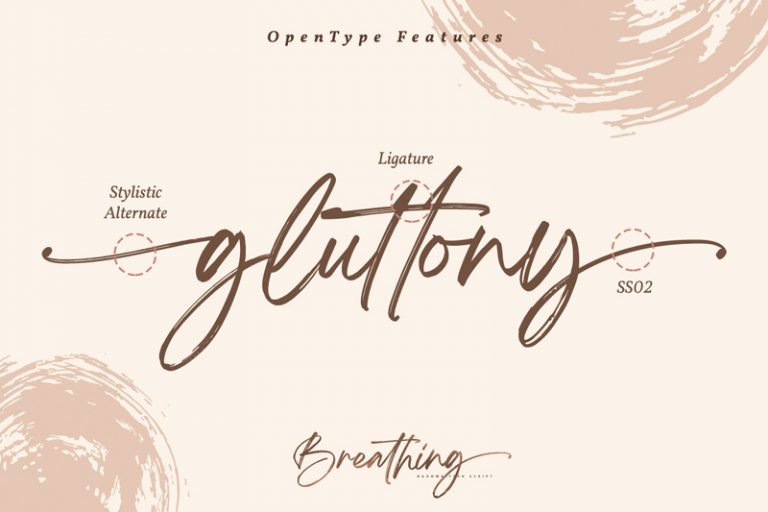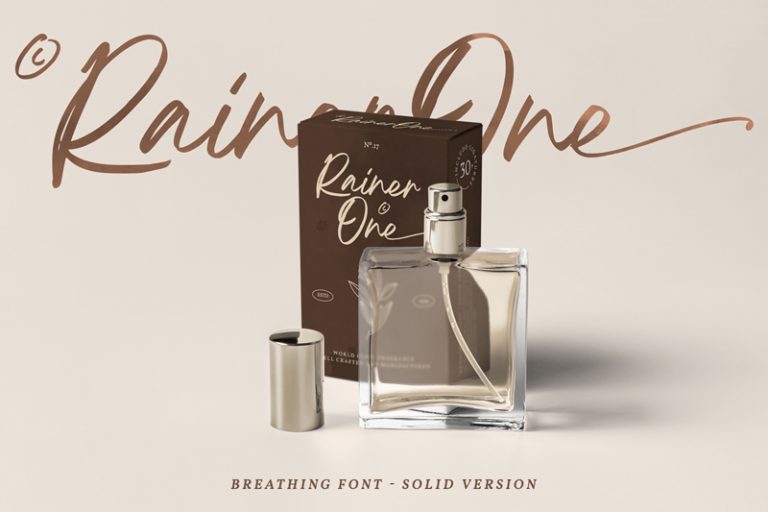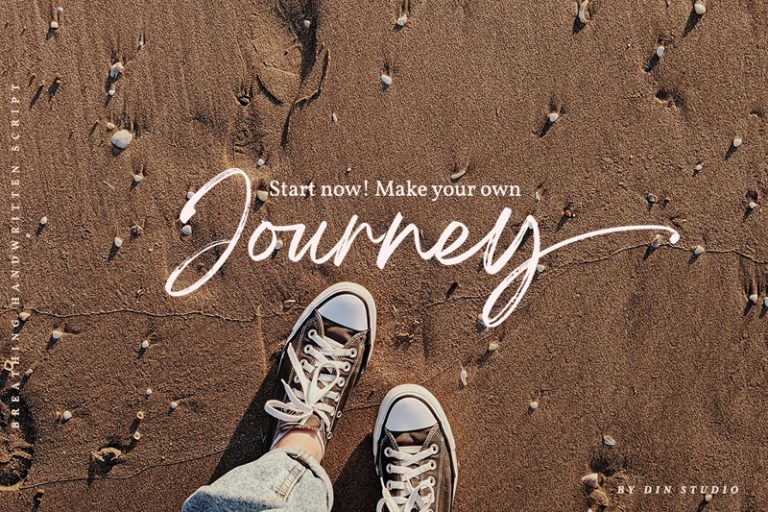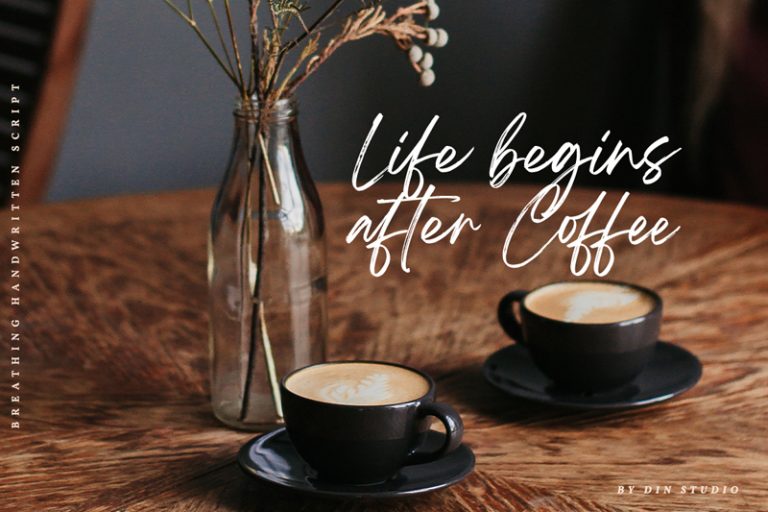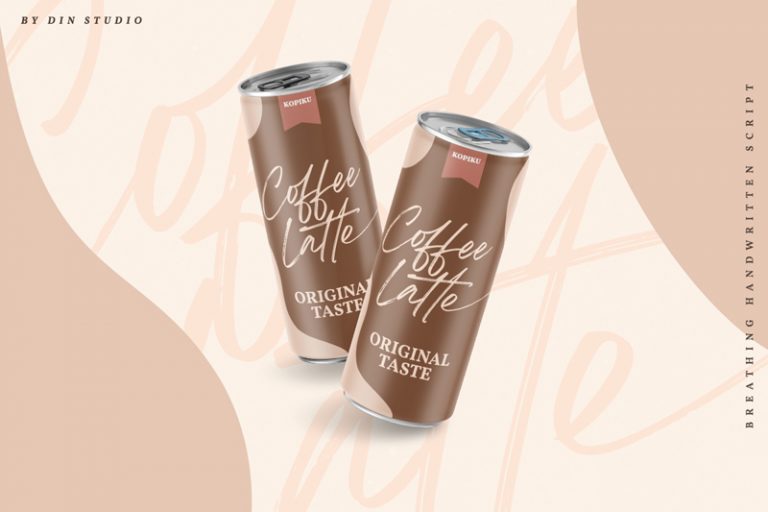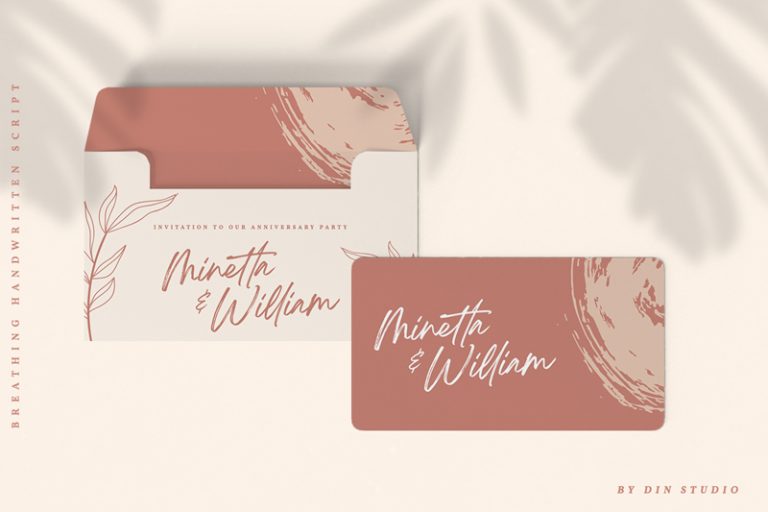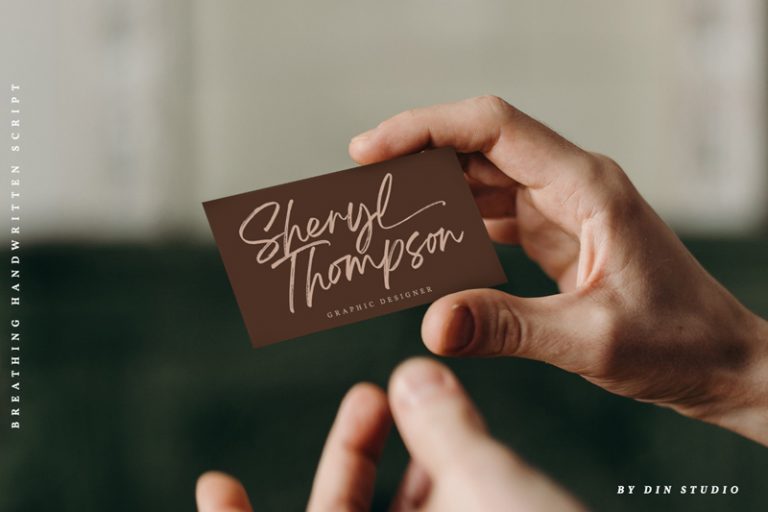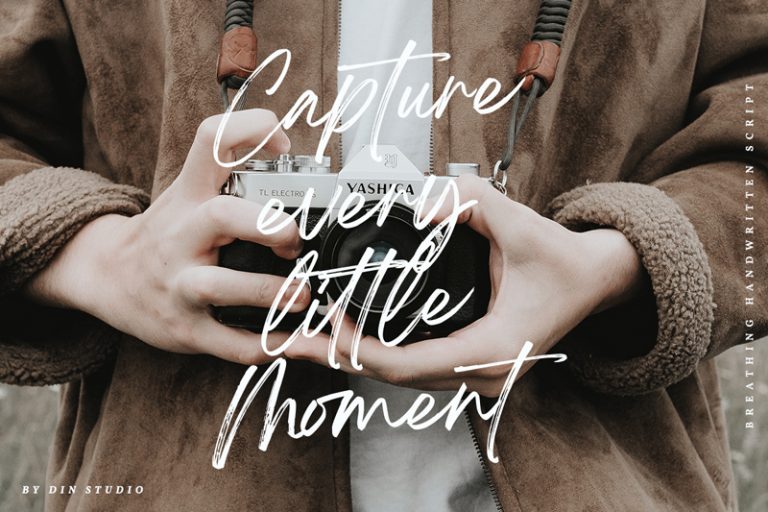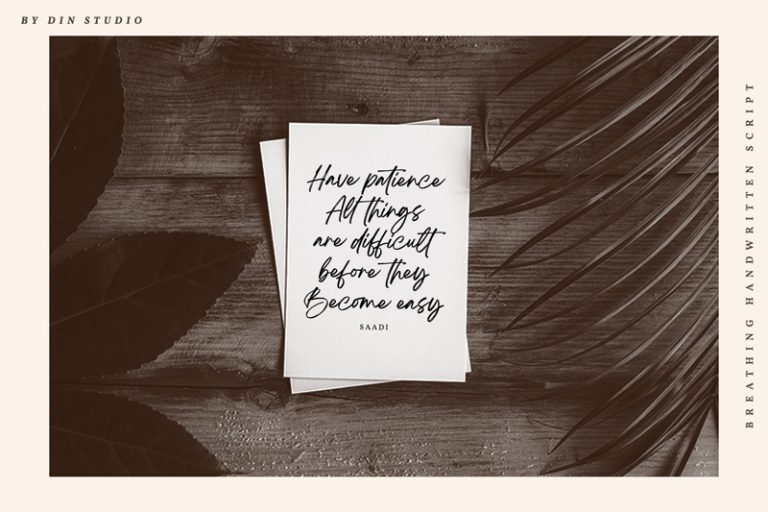
Breathing – Beautiful Brush Font
Breathing Rough
Hello, awesome people! This time, we have a new font called Breathing, a beautiful brush font created by Din Studio.
Breathing, a beautiful brush signature font, is made for any professional project branding, such as signature logos, watermarks, wedding invitations, branding, promotions, product packaging, etc. Every letter has a unique and beautiful touch. This font comes in a rough and solid version.
Breathing brush font includes a full set of handwritten uppercase and lowercase letters, numerals, punctuation, and ligatures. This font has a realistic handwriting style. See the previews above to get some inspiration on how to use them. Happy designing!
Features includes:
- 52 Stylistic set
- 37 Ligatures
- Multilingual Support